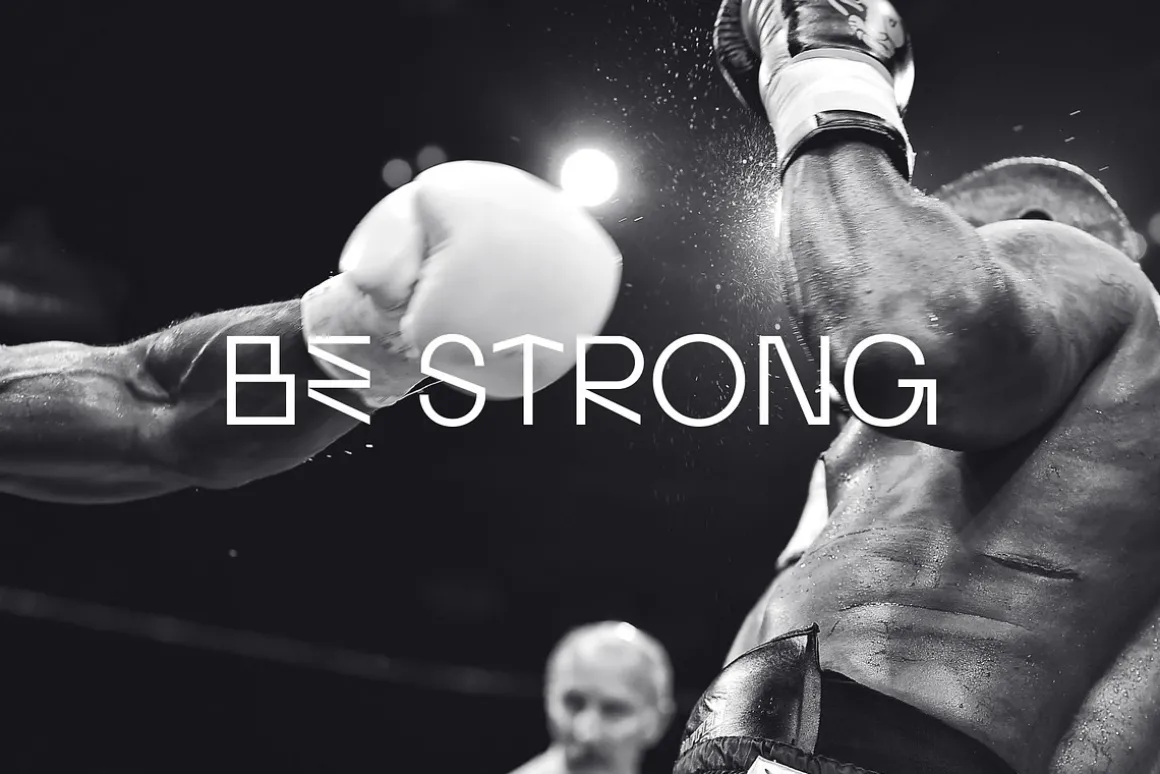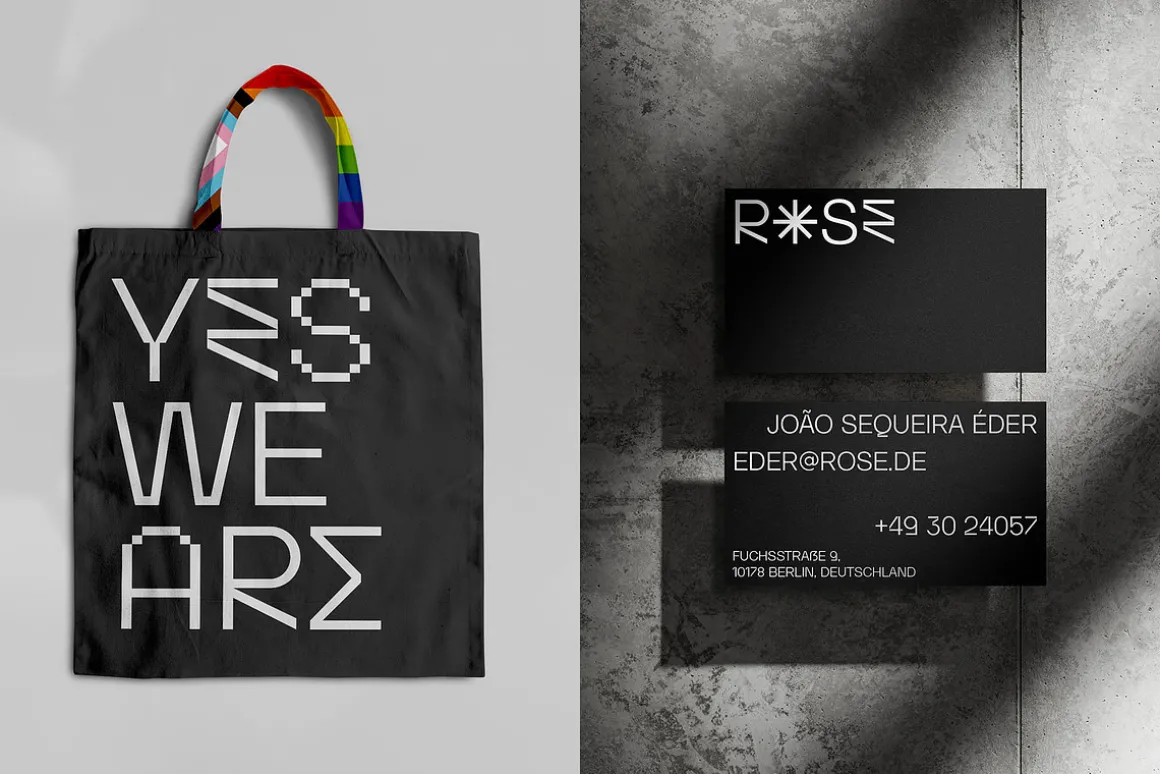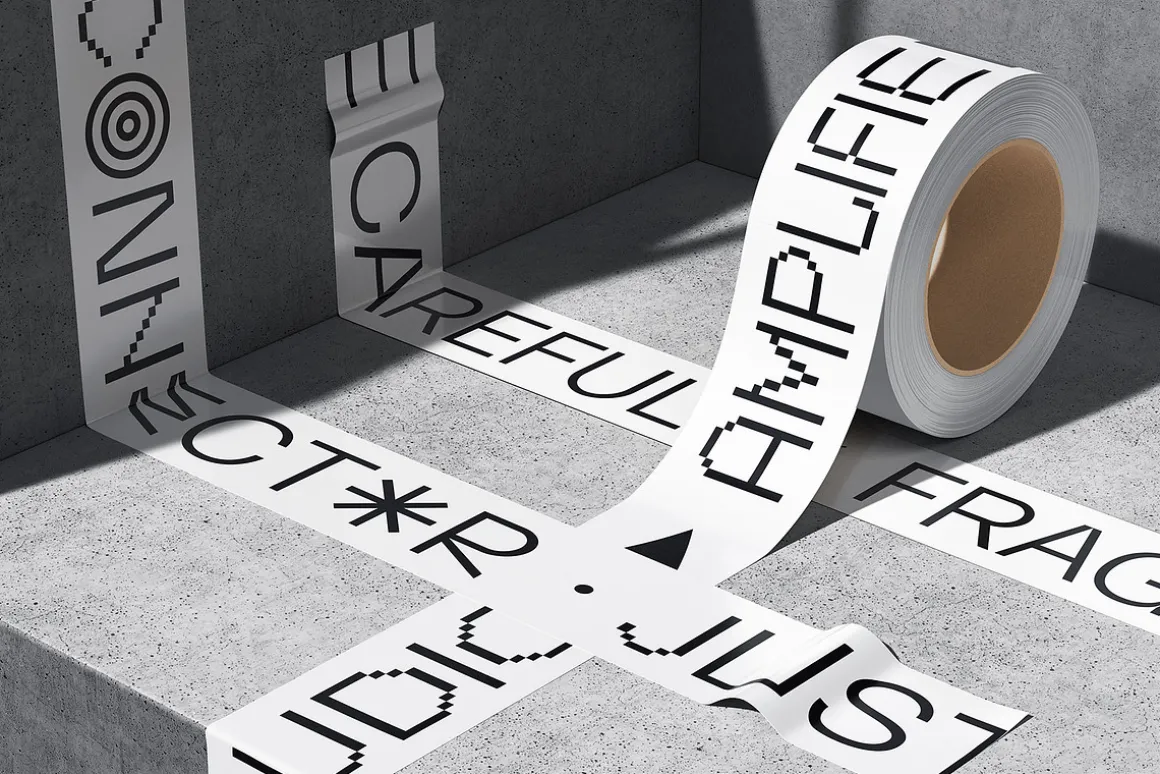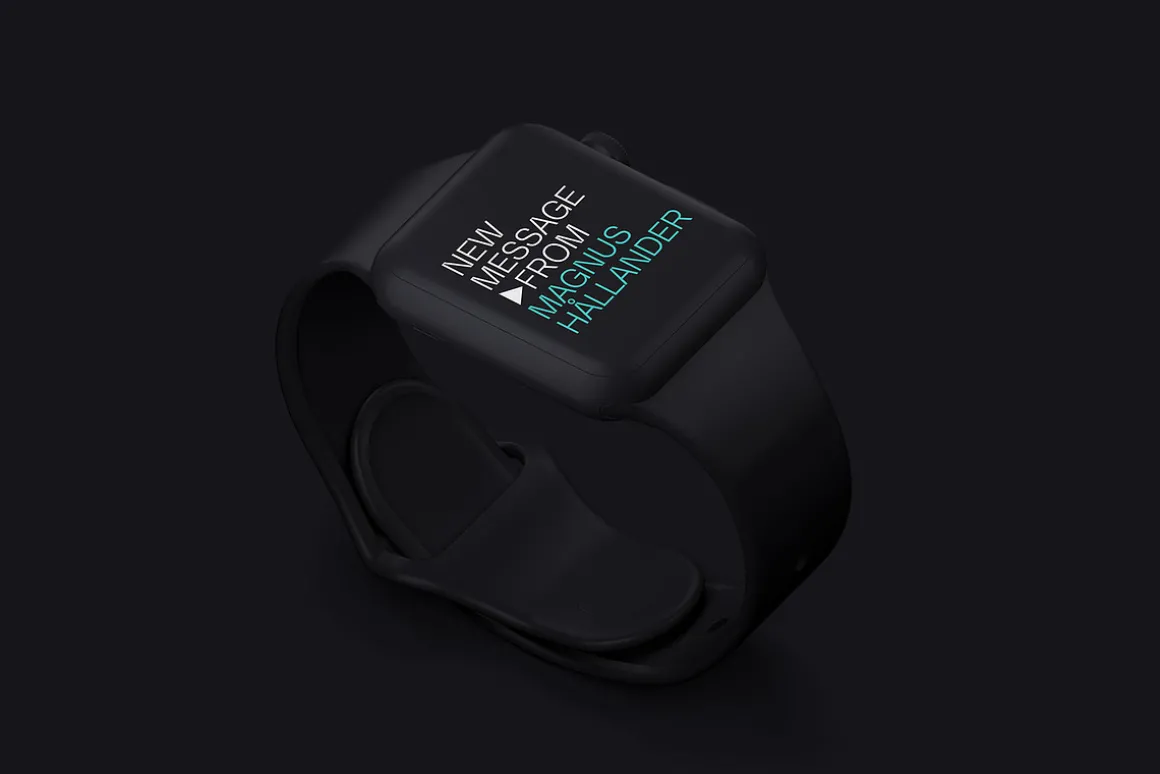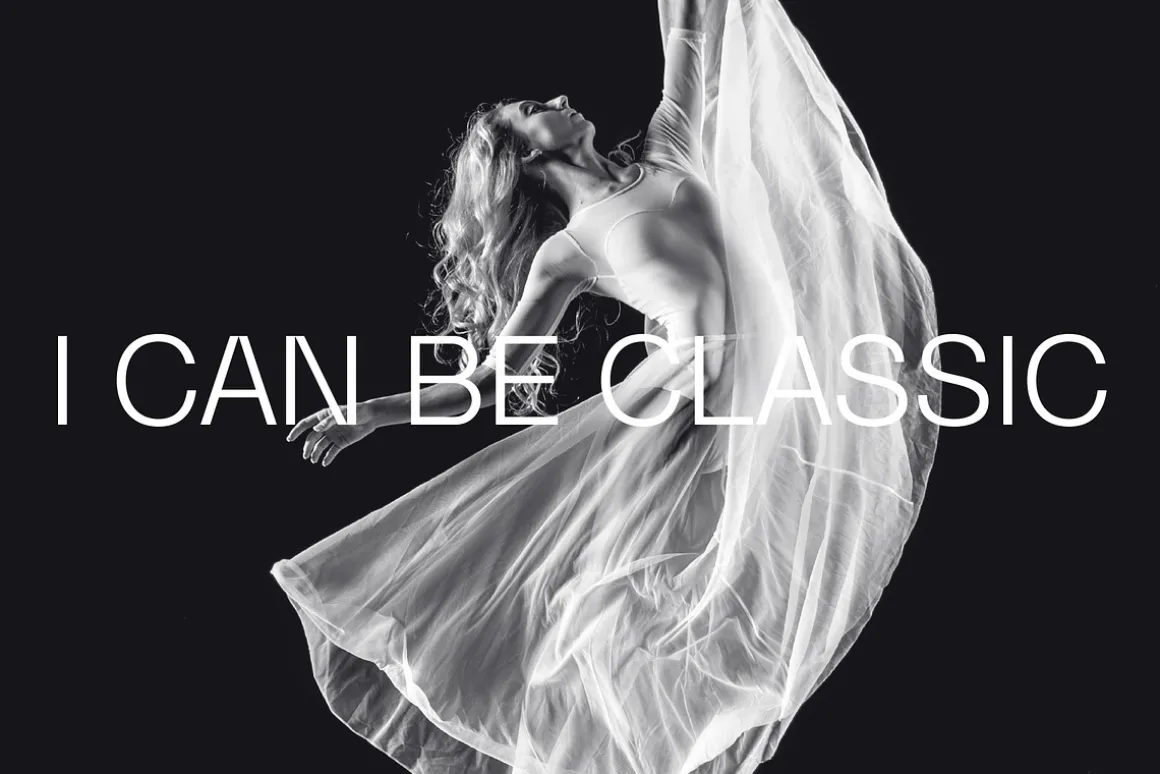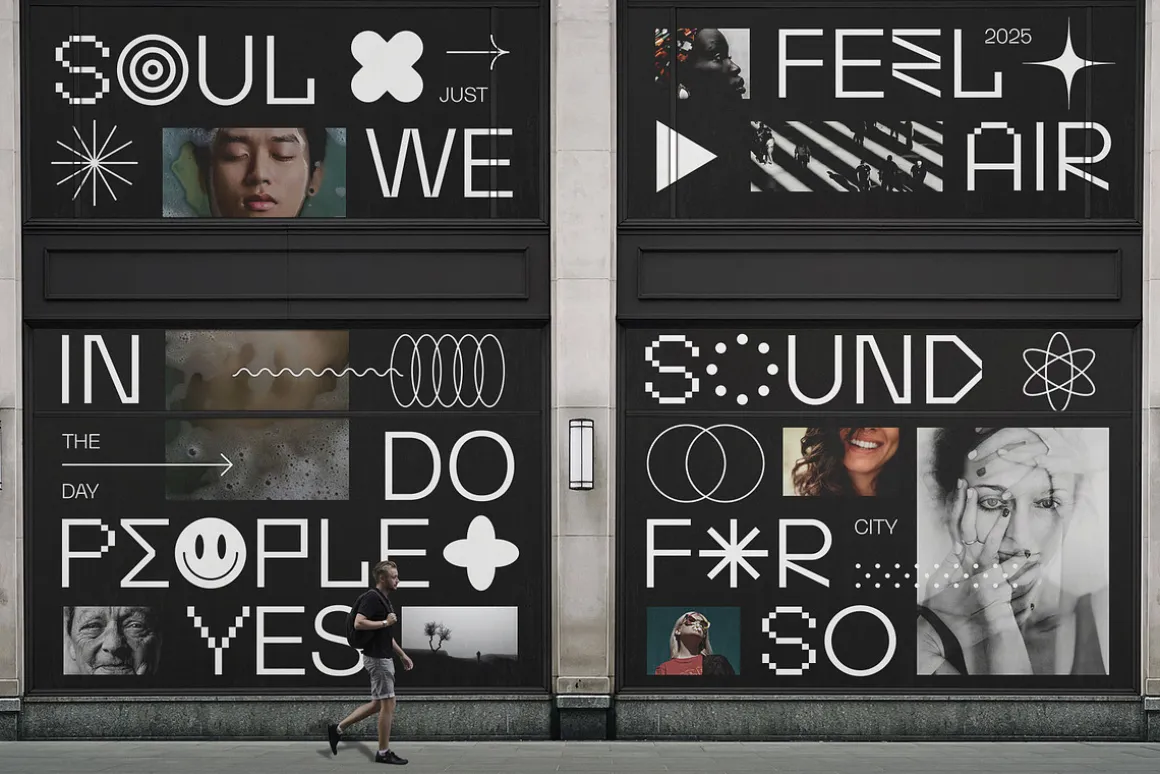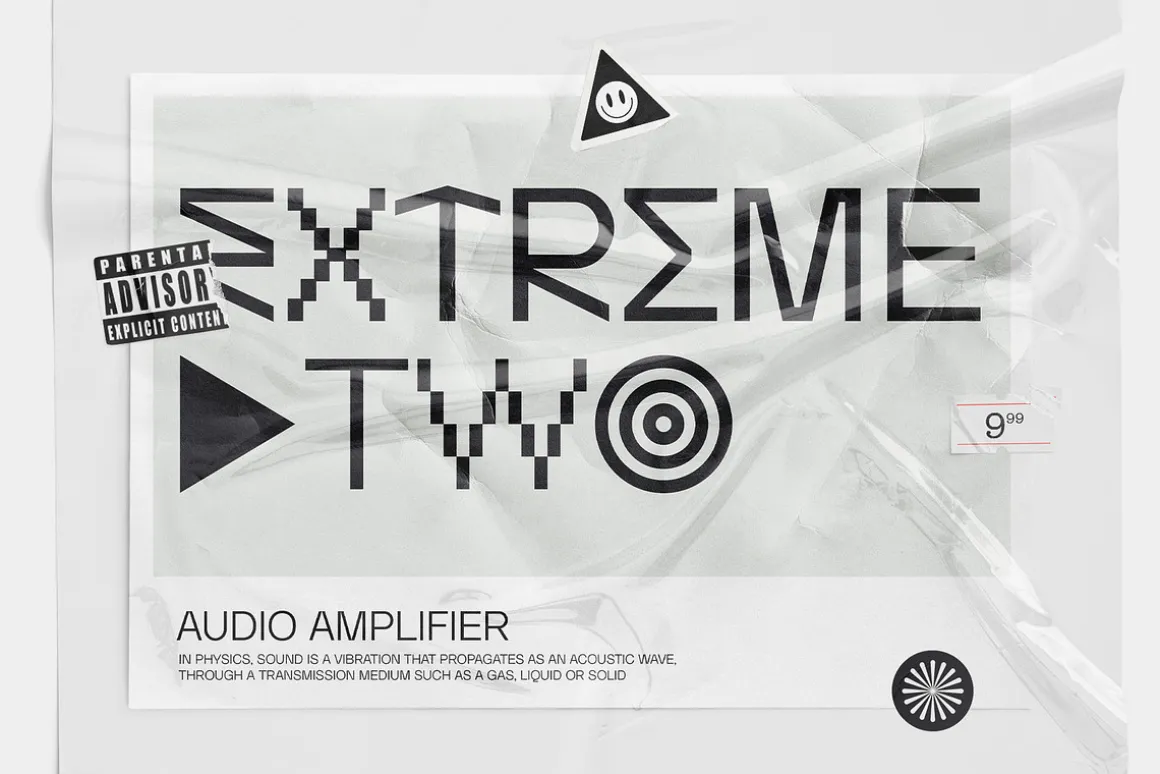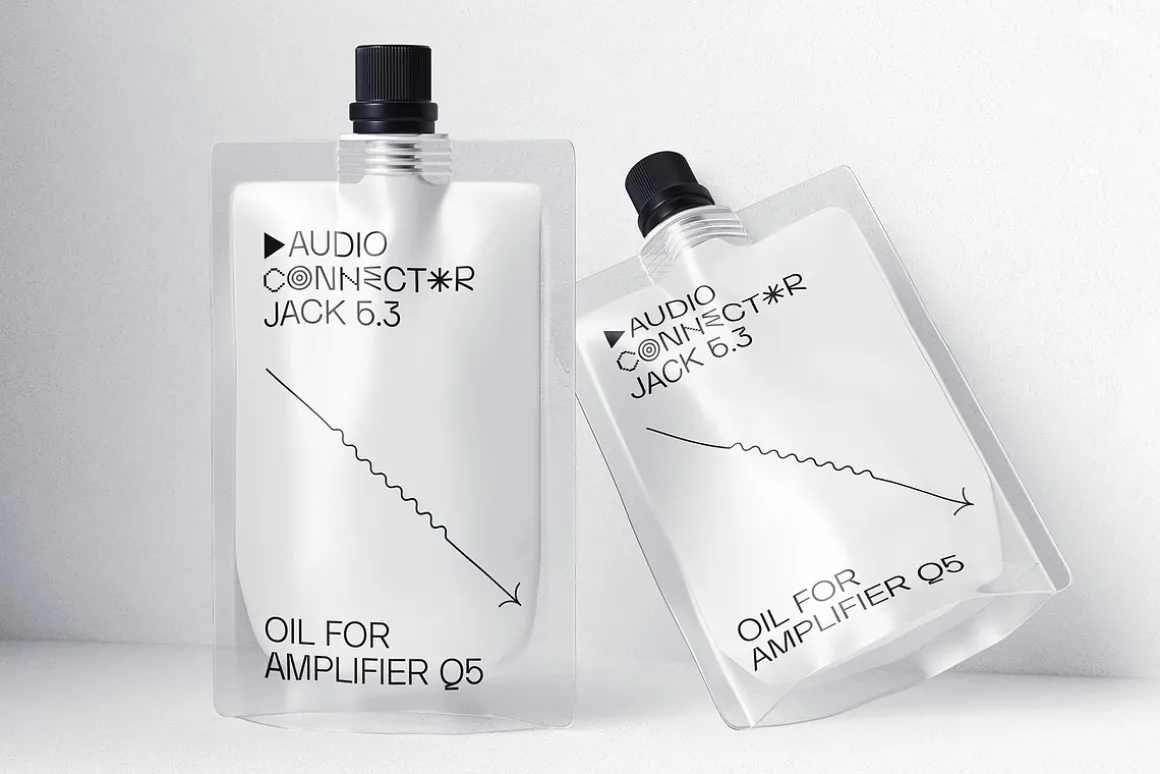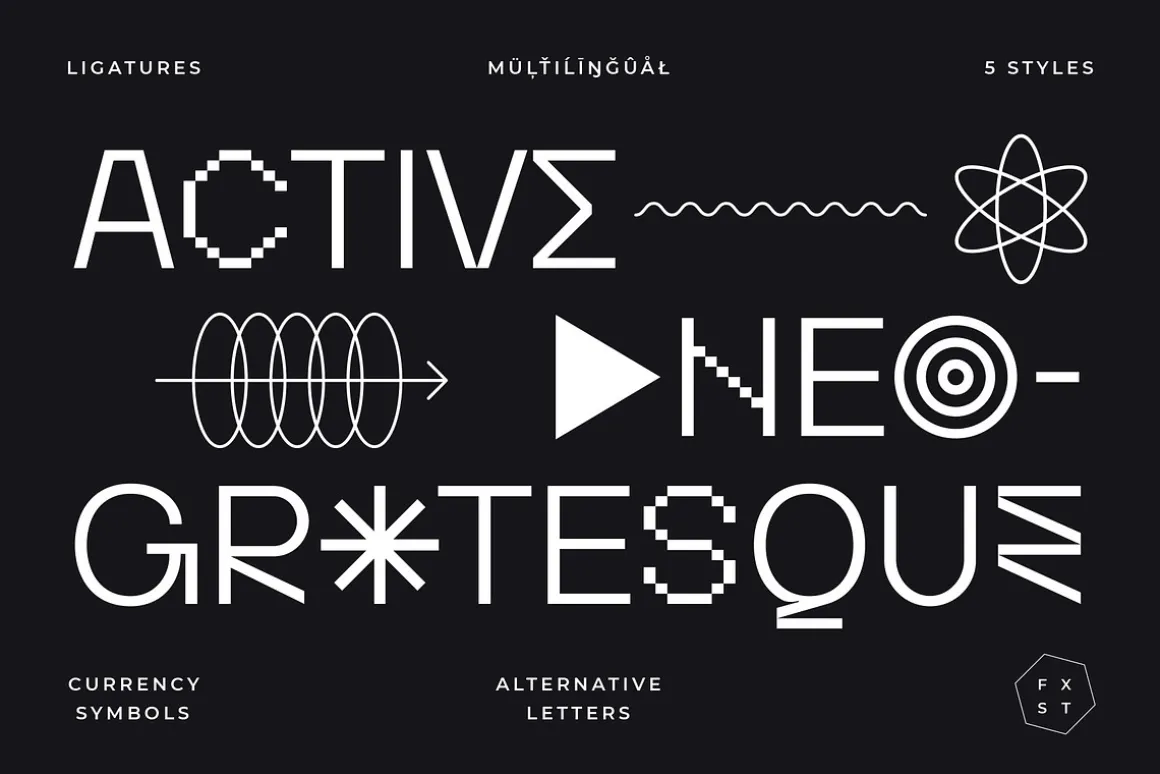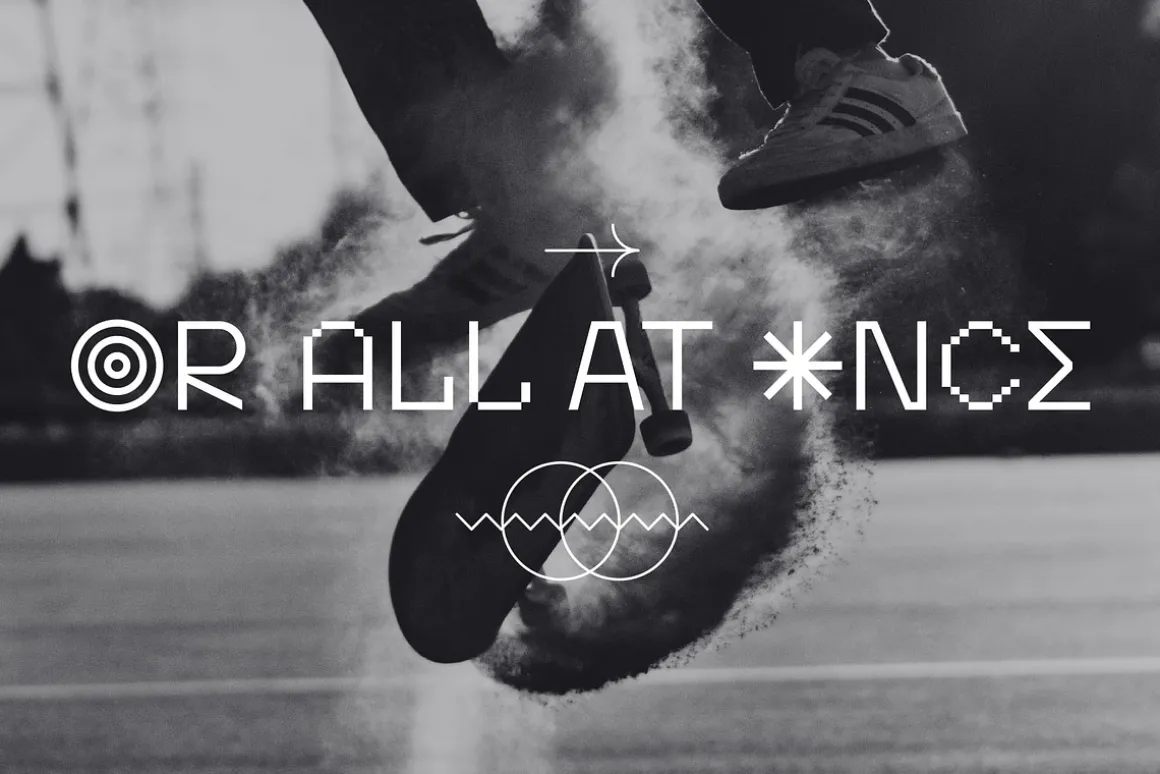
ACTIVICA
On one hand, this font serves as a calm sans-serif, while on the other, it stands alone as a graphic system. Enriched with various shapes and symbols, it goes beyond the mere conveyance of information through text.It’s an emotional neo-grotesque and a versatile tool in the hands of a designer, capable of adapting to a project and guiding the flow of information in the desired direction, adding either rigor or emotion in the appropriate places.
MÜĻŤIĹĪŊĞÛÅŁ
Activica supports most Latin-based languages.
LIGATURES